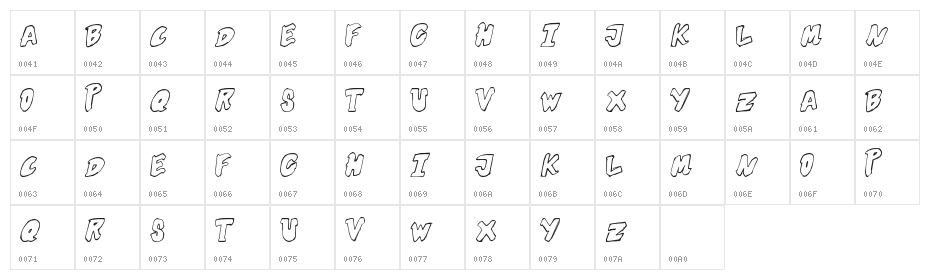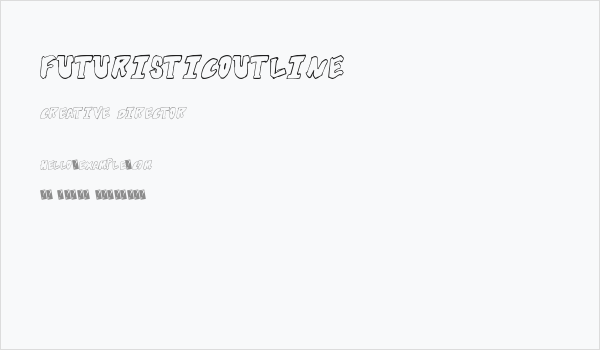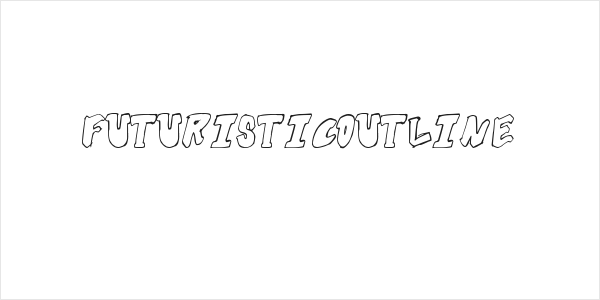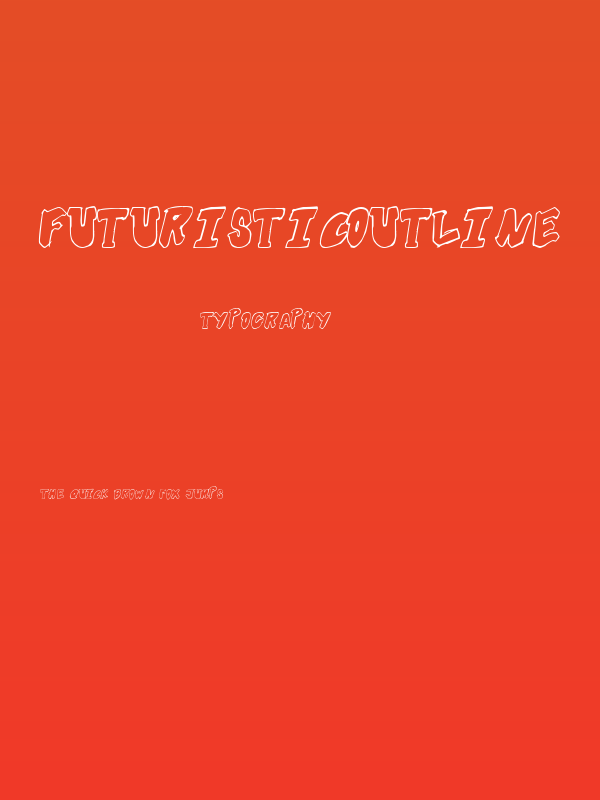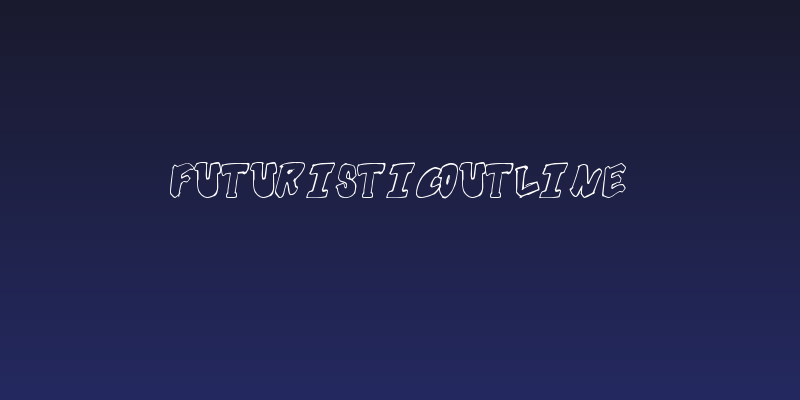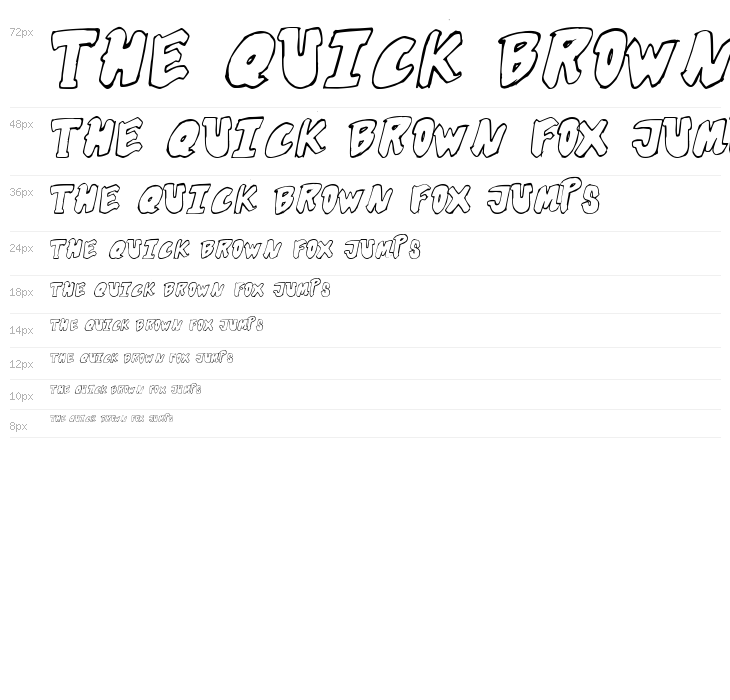
FuturisticOutline Font
FuturisticOutline Description
This font features a bold, outlined style with a futuristic and dynamic appearance. The uppercase and lowercase letters are consistent in their design, offering a cohesive look. The characters have a playful, energetic feel, with rounded edges and a slightly italicized slant, adding to their modern appeal. The numbers and special characters maintain the same outlined aesthetic, ensuring uniformity across all glyphs. This font's unique style makes it stand out, ideal for projects that require a touch of creativity and modernity.
| Proposed Projects | Ideal for sci-fi themed designs, video game graphics, posters, and branding that requires a modern and energetic touch. |